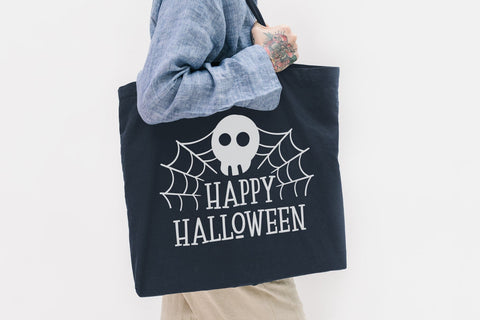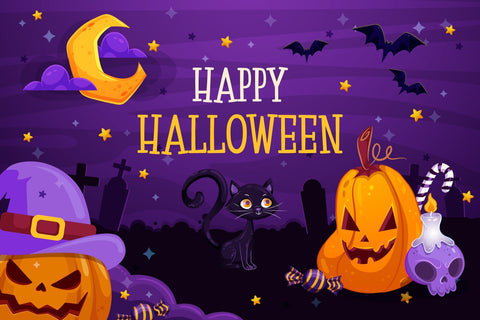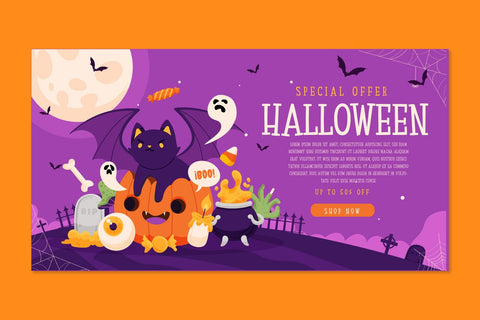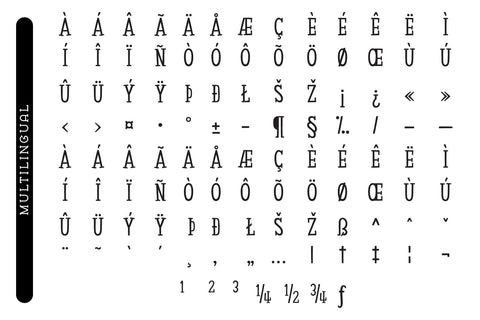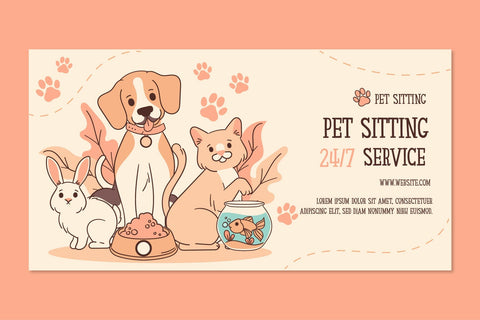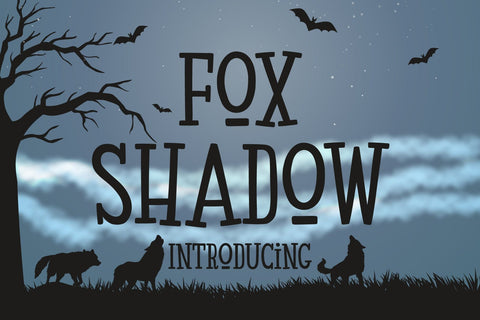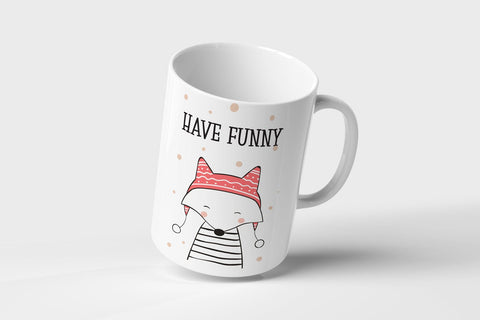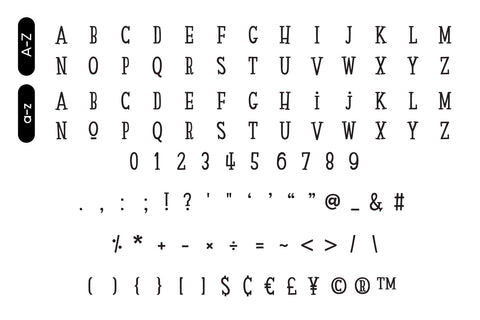
Fox Shadow Font
Fox Shadow is a cool, fun, and easy-to-read slab serif font. No matter the topic, this font will be an incredible asset to your fonts’ library, as it has the potential to elevate any creation. Its cheerful vibe is suitable for kid-friendly designs, posters, wall art, stickers, Halloween, or festival valentines, Mother’s Day, and more!